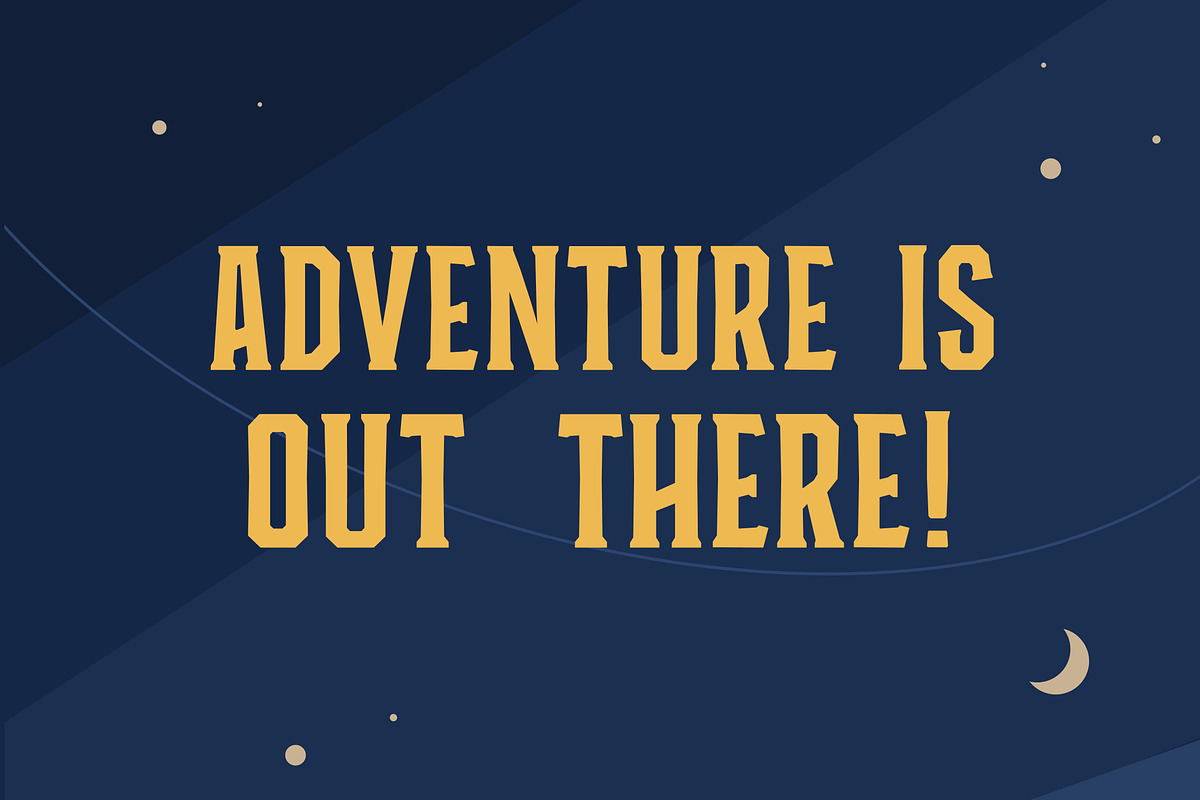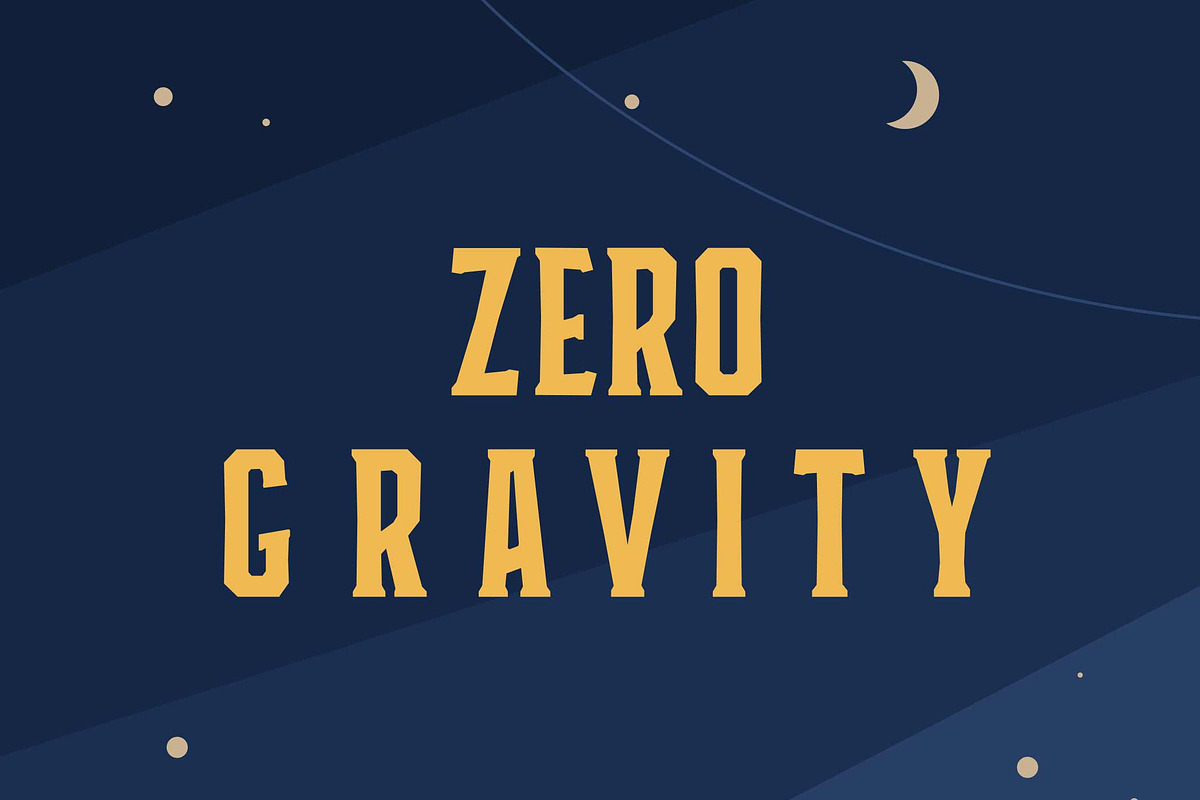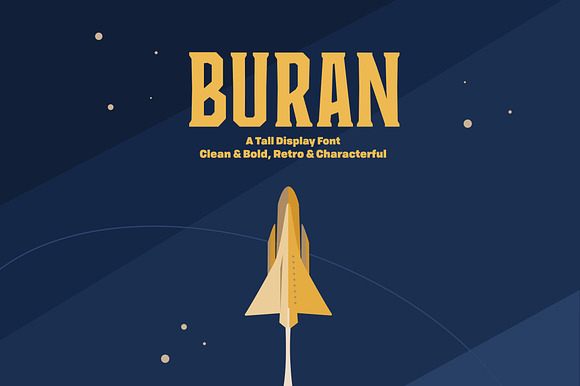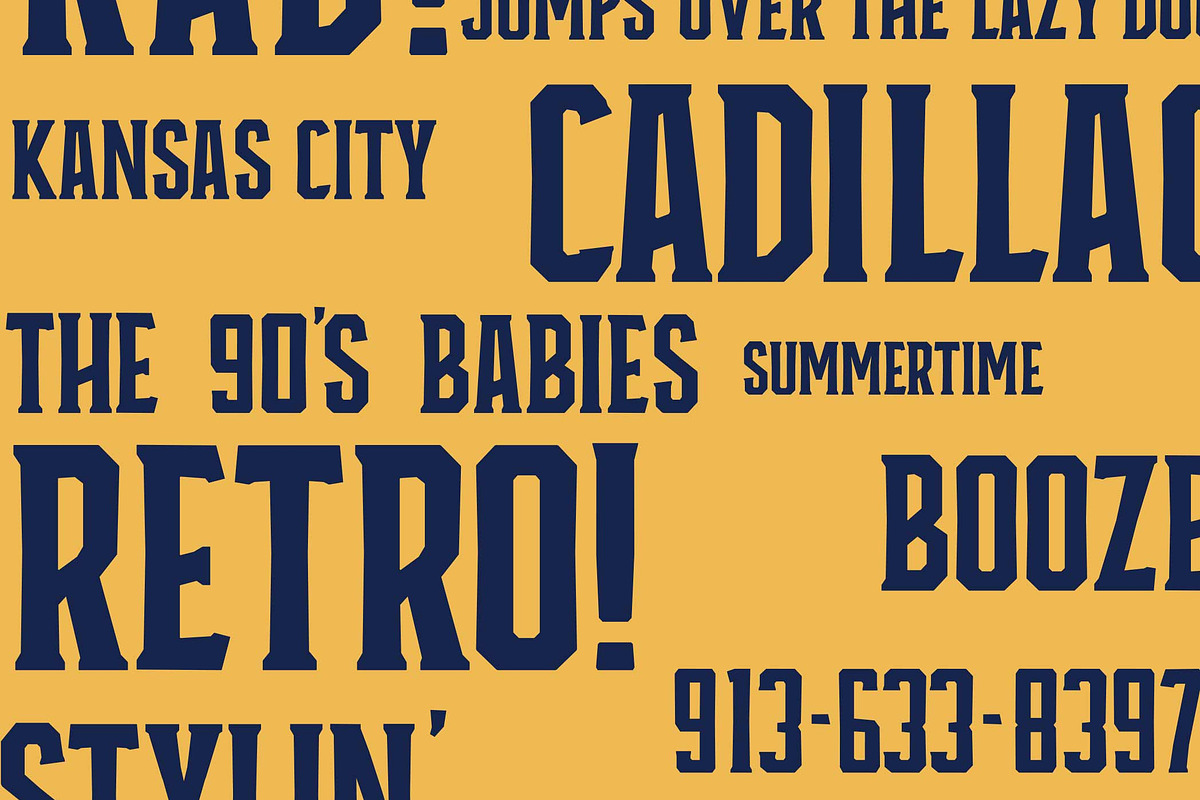
Buran Display Font
The name Buran comes from the name of the space shuttle of 1988.
This display type is inspired by the "anatomy" of space shuttles, specifically Buran. The serifs in the type reflect the wing and 'elevon' of a space shuttle, acting as support for the tall body of the structure.
The personality of this typeface is defined by it's square corners, it's tall strokes and the slab-esque serifs that support it.